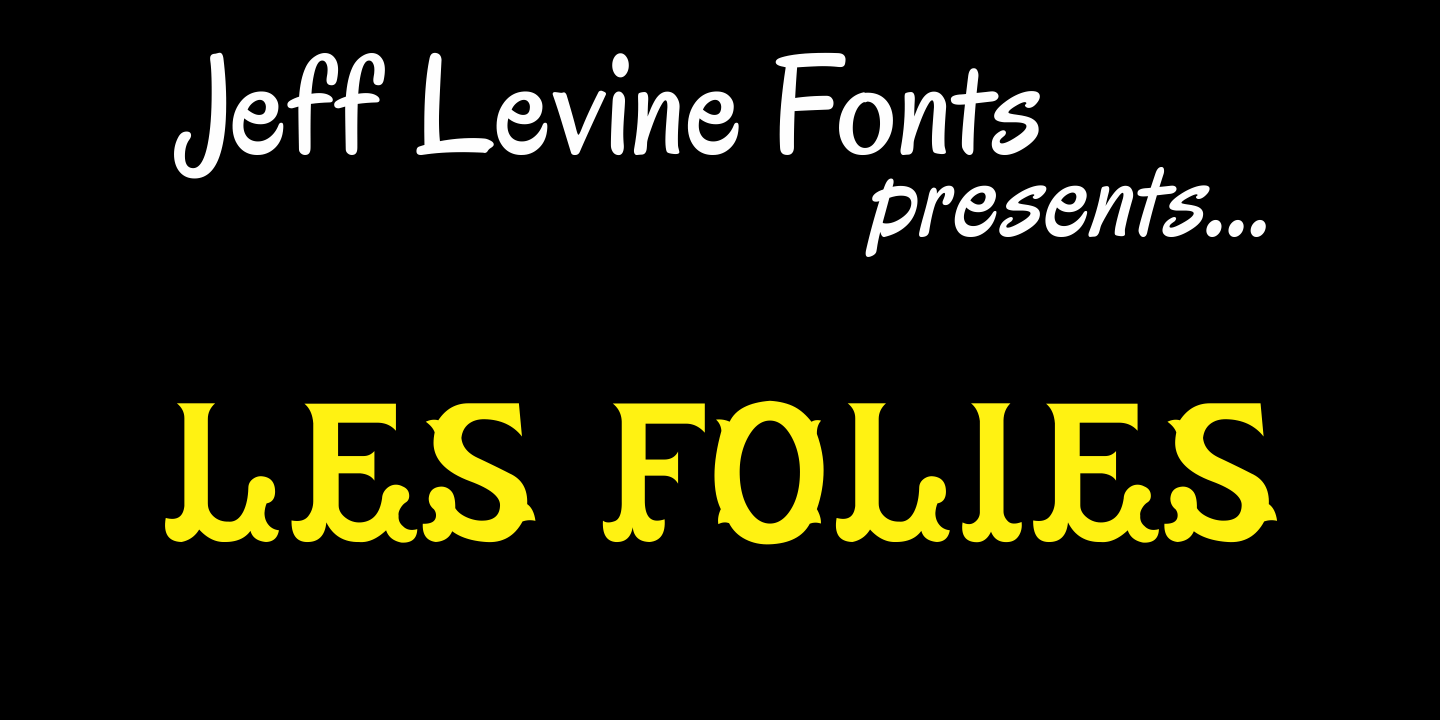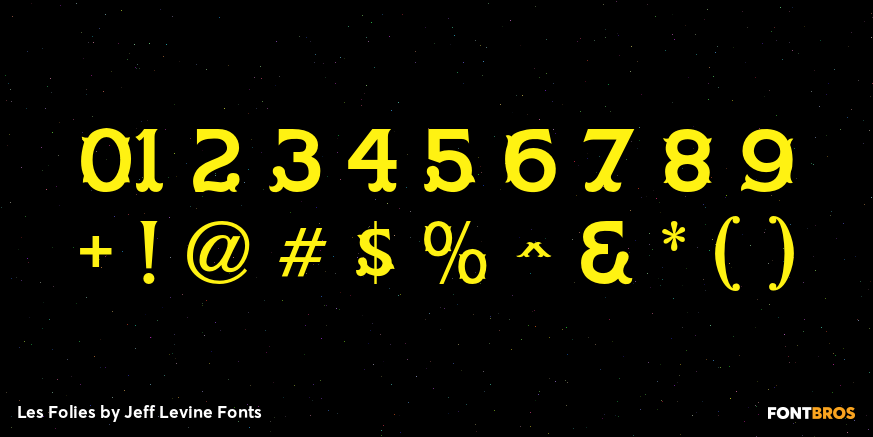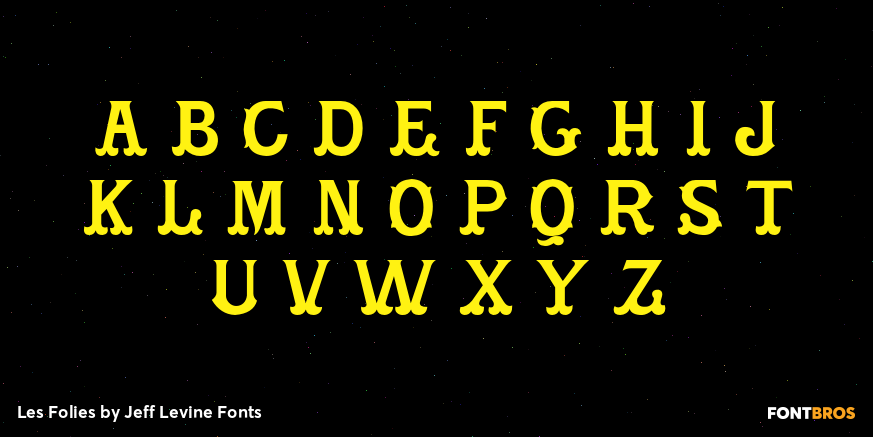
Les Folies
An early 20th-Century French lettering book displayed at an online image sharing site stood out with a hand-lettered version of a classic Victorian font. The lettering - a spur serif top and a split serif (or "Western-style") bottom is the basis for Jeff Levine's Les Folies JNL. All of the nuances and idiosyncracies of hand-lettering are left intact.
Les Folies JNL Regular by Jeff Levine Fonts